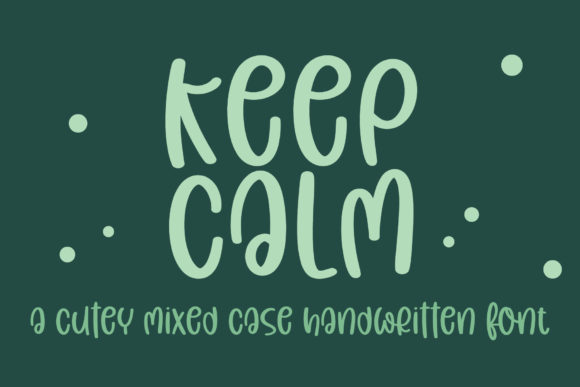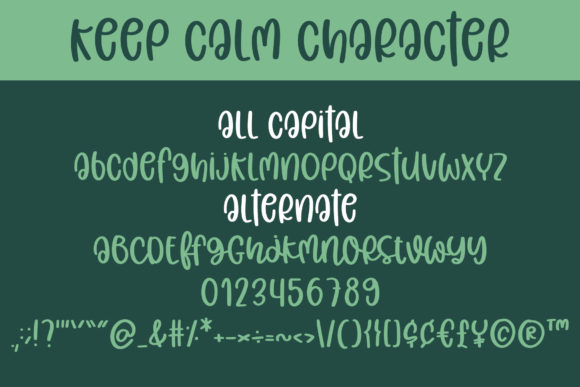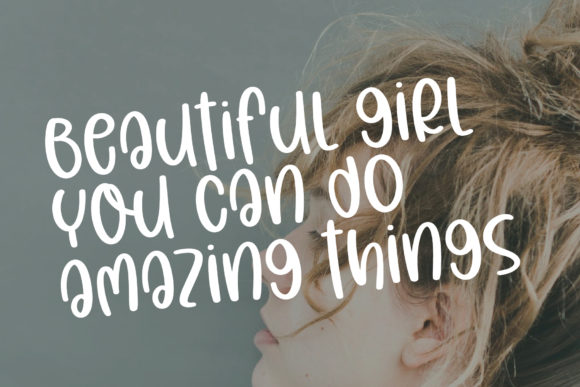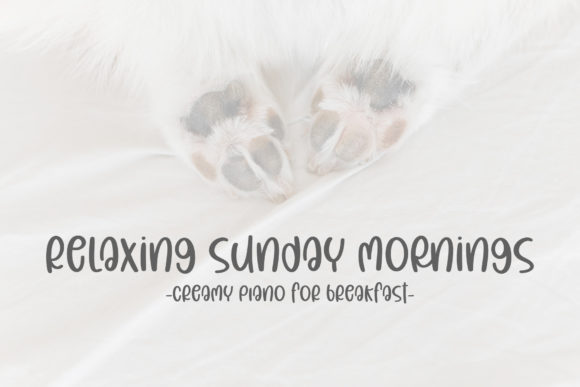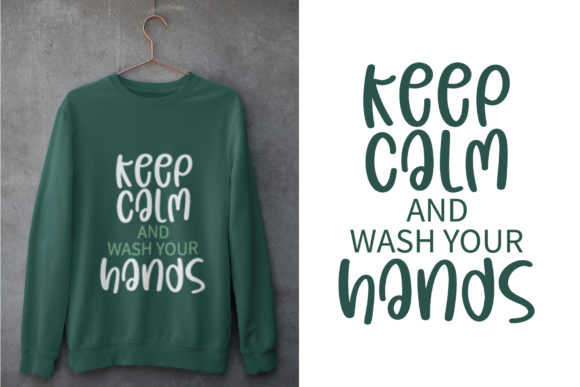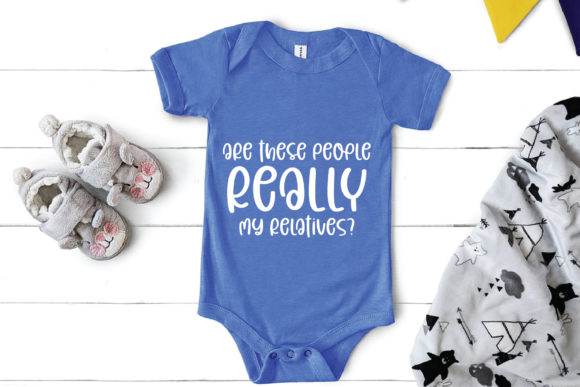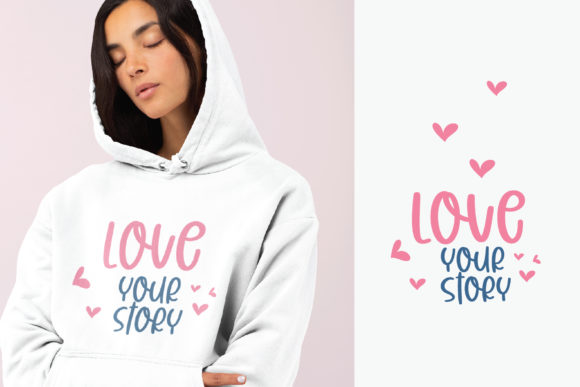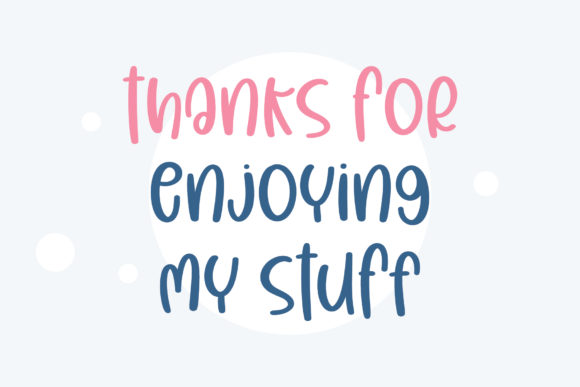
Keep Calm Font
About Keep Calm Font
Keep Calm is a delightful and relaxed handwritten font that brings a cheerful touch to your designs. With its mixed case letters, this font adds a playful and casual vibe to your posters, logos, business presentations, social media posts, and more. Its versatility and PUA encoding allow you to access a range of glyphs and swashes effortlessly, expanding your creative possibilities.
The cute and handwritten style of Keep Calm adds a touch of personality and warmth to your designs. The letters have a relaxed and natural feel, as if they were drawn by hand with care. This adds a unique and personal touch to your projects, making them stand out and engaging for your audience.
Keep Calm is particularly well-suited for posters, as it brings a cheerful and inviting atmosphere to your visual communication. Whether you’re creating event posters, motivational prints, or informational designs, this font will make your message more eye-catching and appealing. Its mixed case letters add a sense of informality and friendliness, creating a connection with your audience.
Logos also benefit from the relaxed feel of Keep Calm. By using this font in your logo design, you can convey a sense of approachability and creativity. The mix of uppercase and lowercase letters adds visual interest and a modern twist, making your logo memorable and distinctive.
When it comes to business presentations, Keep Calm adds a touch of playfulness and personality to your slides. It breaks away from the traditional formal fonts, injecting a sense of creativity and liveliness into your content. Whether you’re creating slides for a pitch, a workshop, or a team meeting, this font will keep your audience engaged and attentive.
Social media posts can also benefit from the charm of Keep Calm. Whether you’re sharing quotes, promoting products, or creating engaging visuals, this font will add a cheerful and relaxed vibe to your content. Its mixed case letters allow for creative typography and emphasize key messages in a friendly and approachable manner.
In summary, Keep Calm is a cute handwritten font with a relaxed feel that adds a cheerful touch to your designs. With its mixed case letters and PUA encoding, it offers versatility and accessibility to a range of glyphs and swashes. Whether you’re designing posters, logos, business presentations, or social media posts, this font brings a playful and engaging atmosphere, making your designs stand out and leave a lasting impression on your audience.